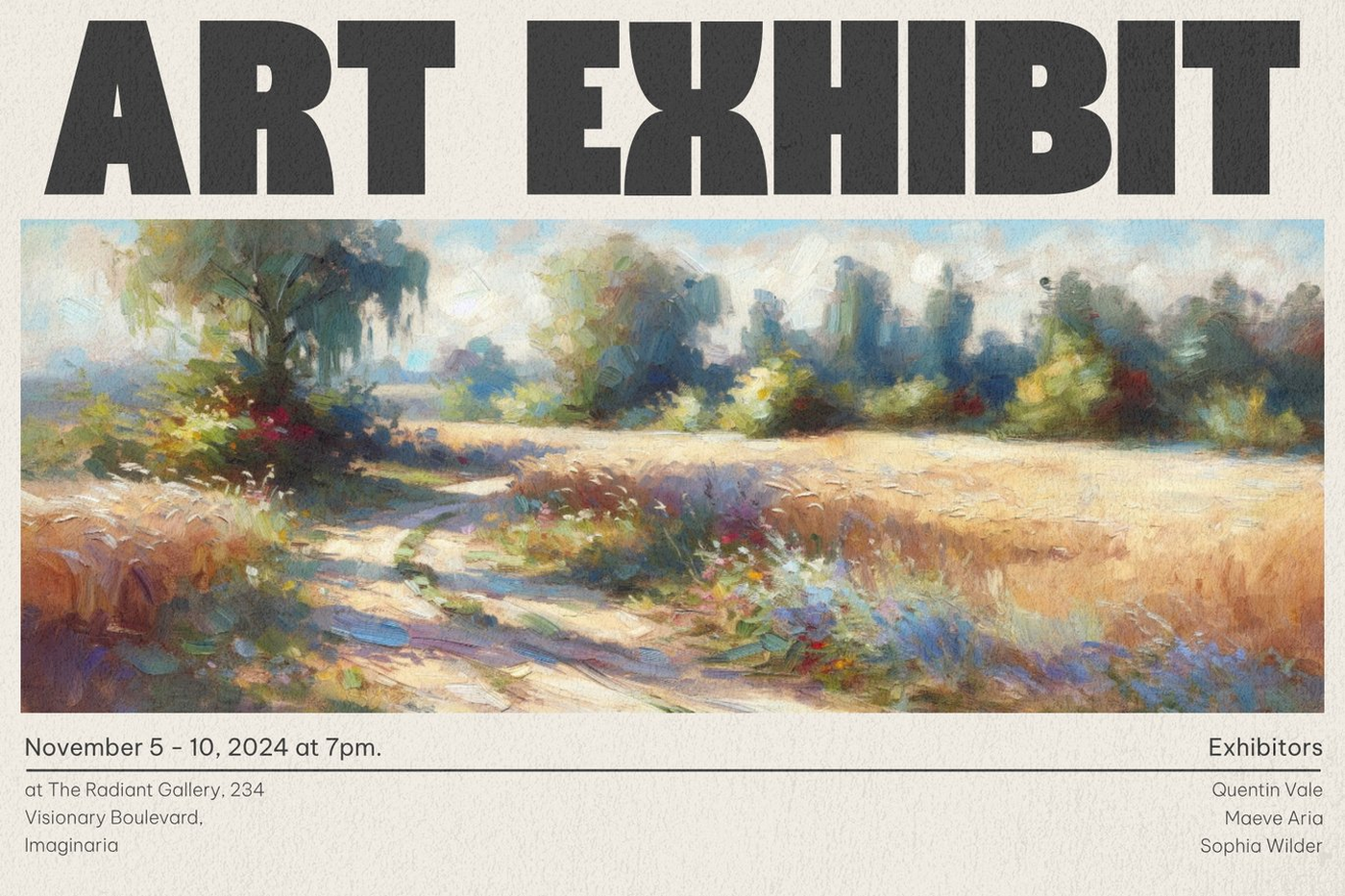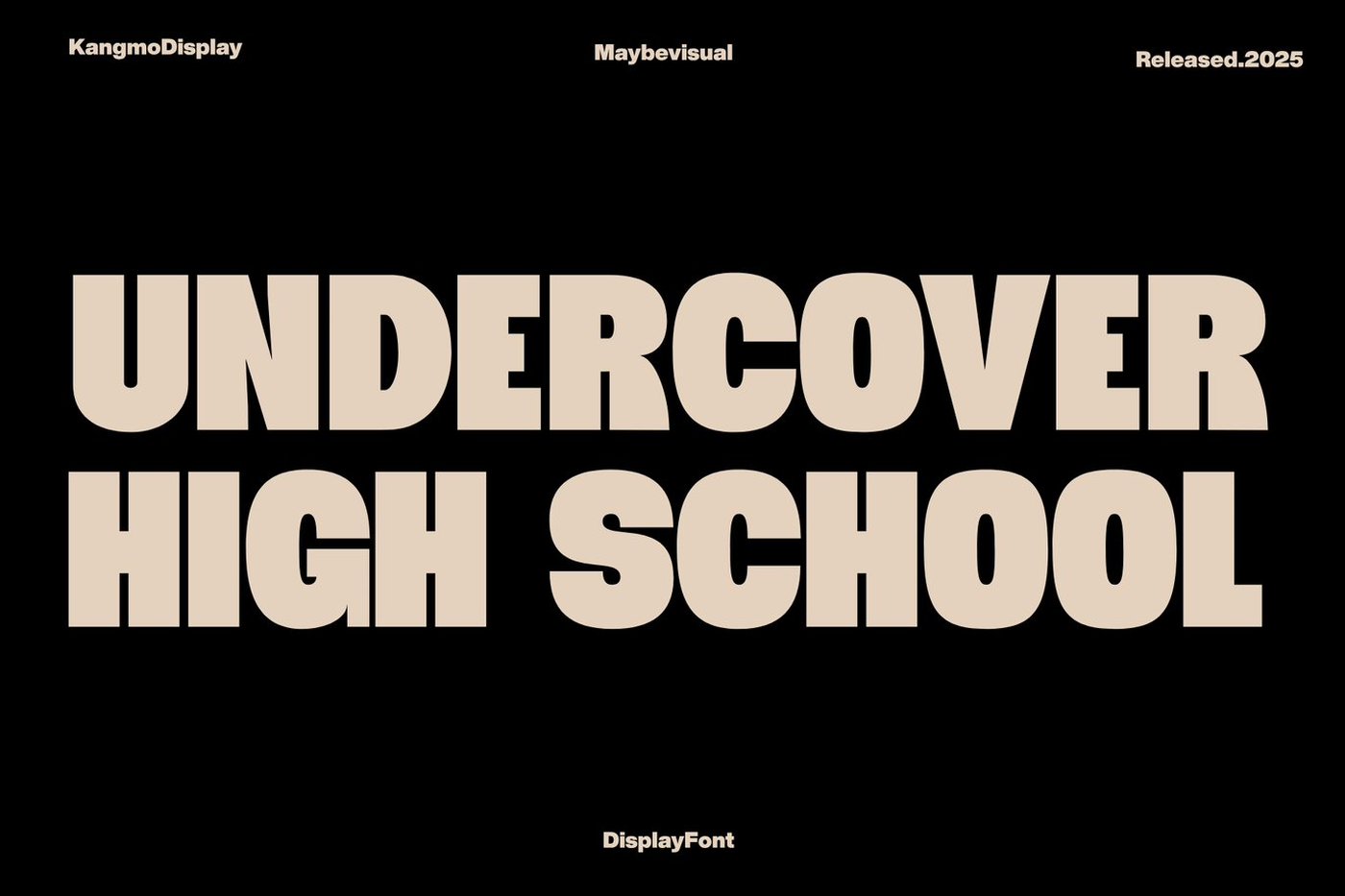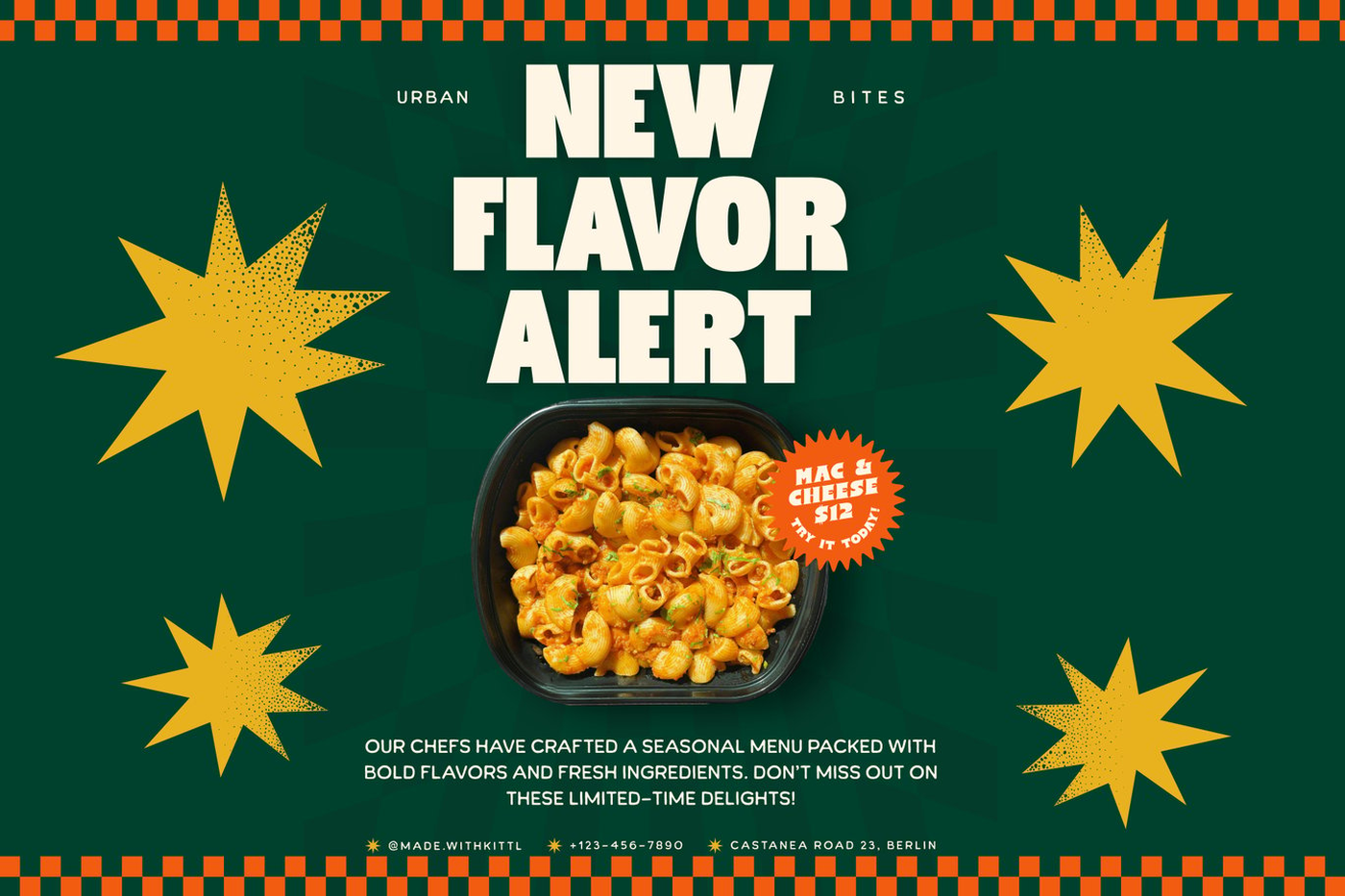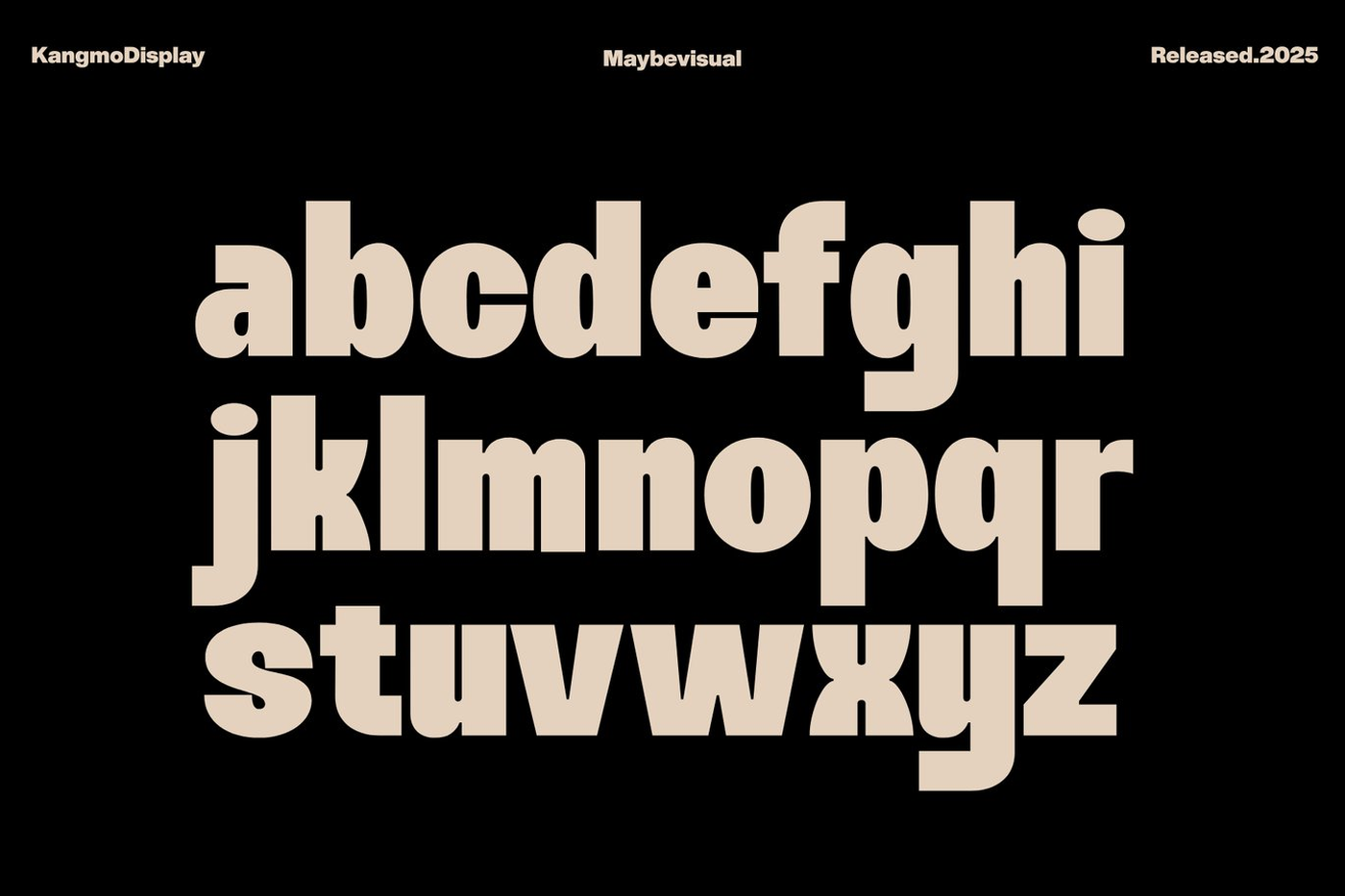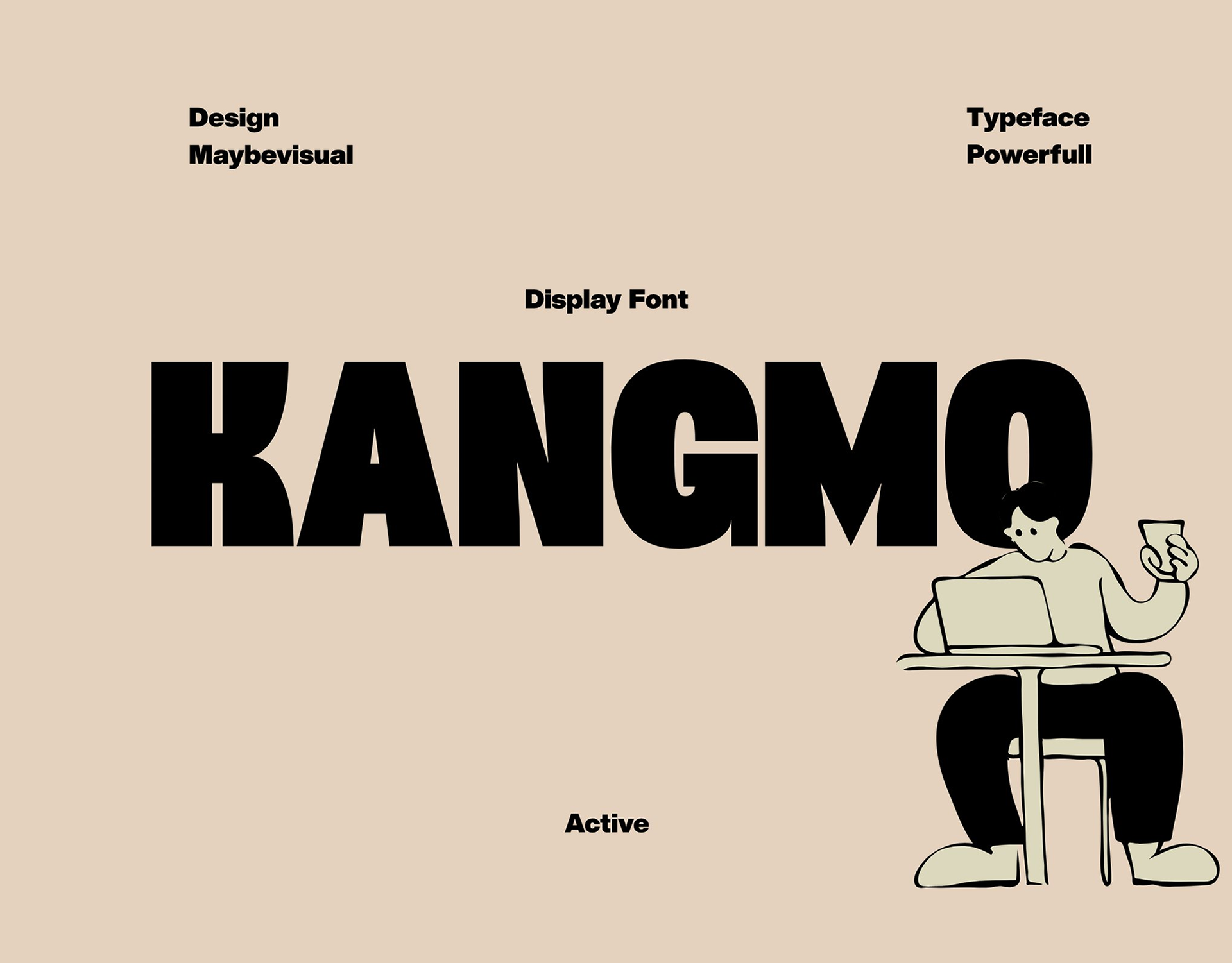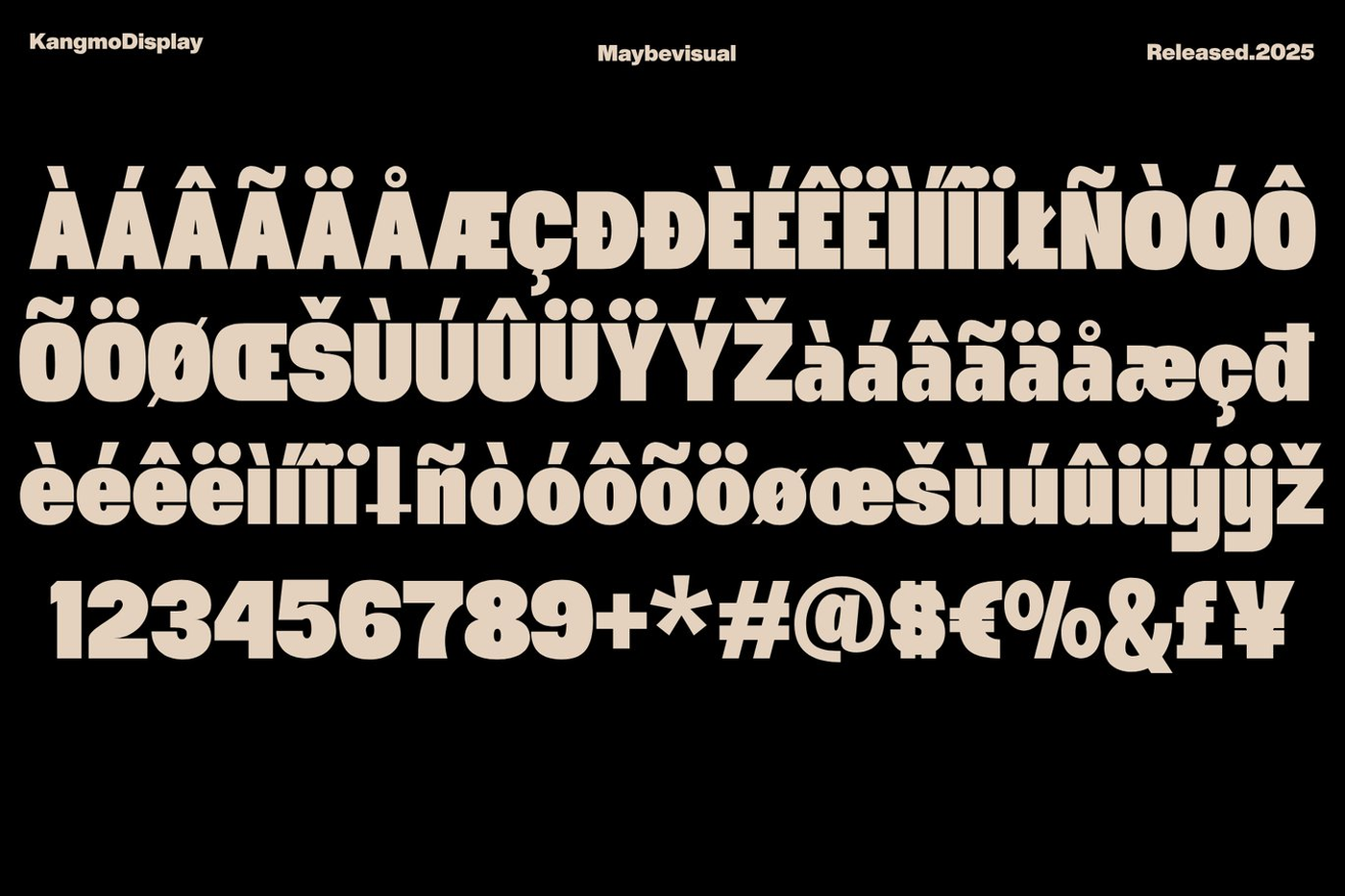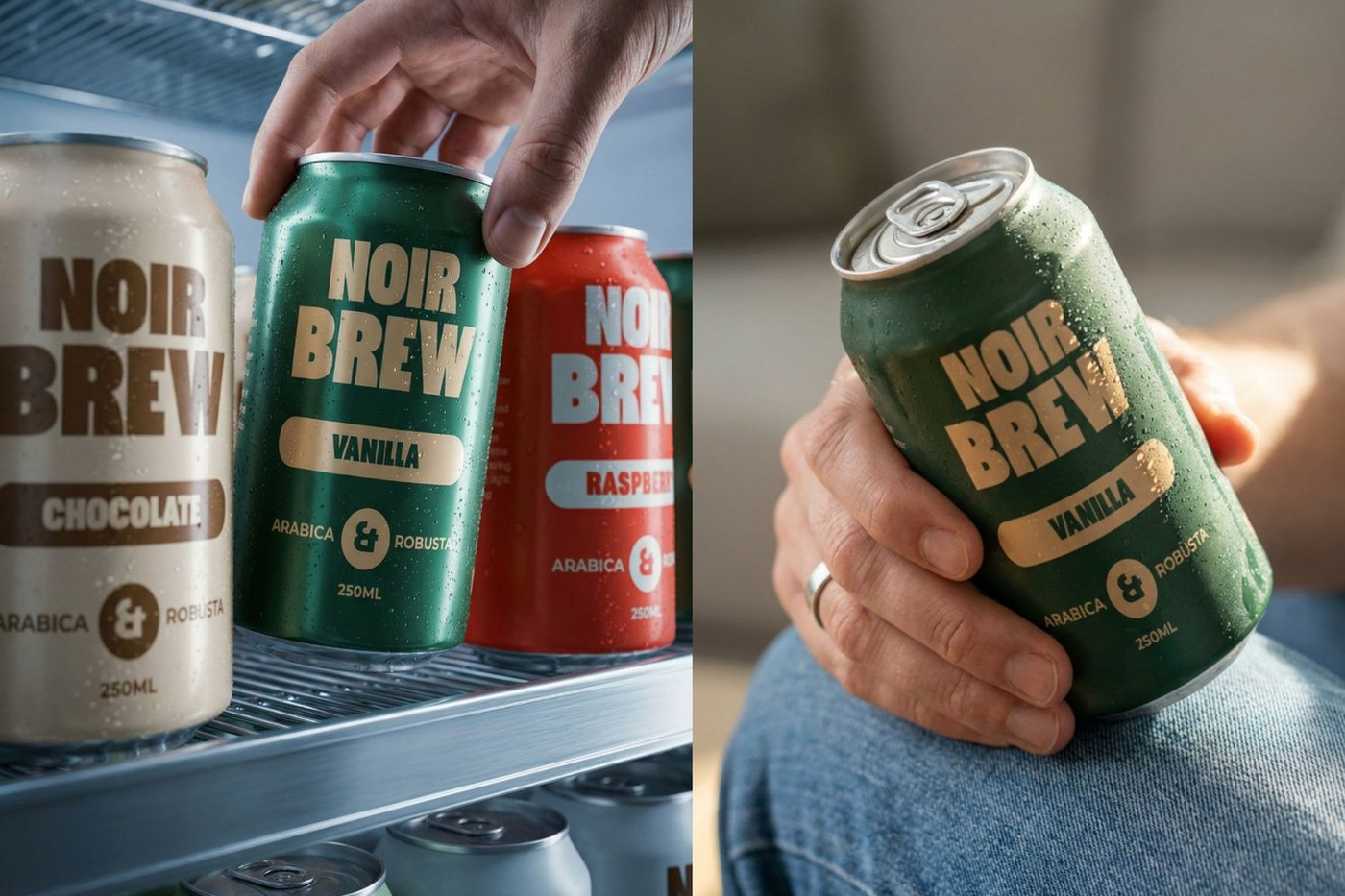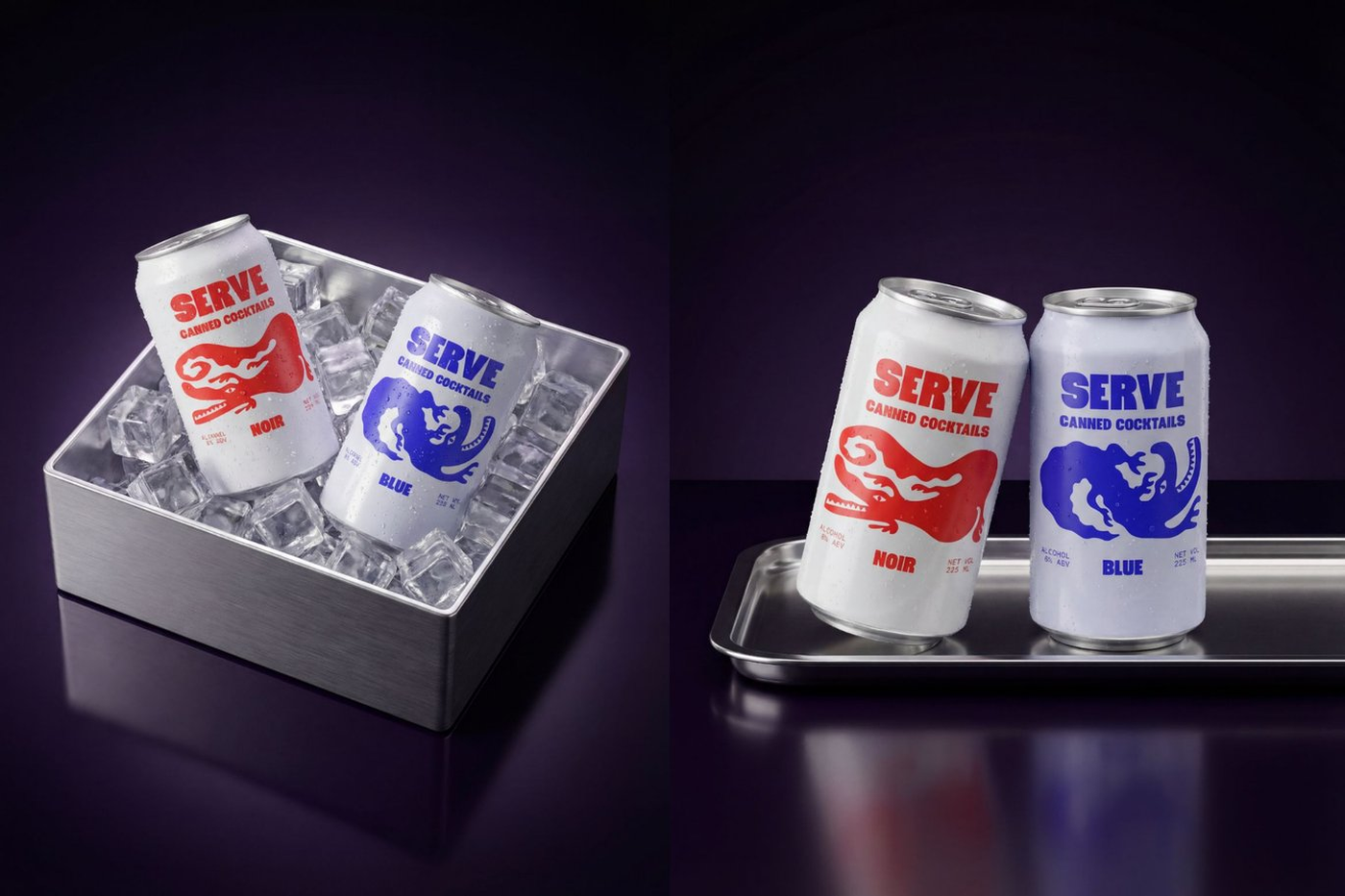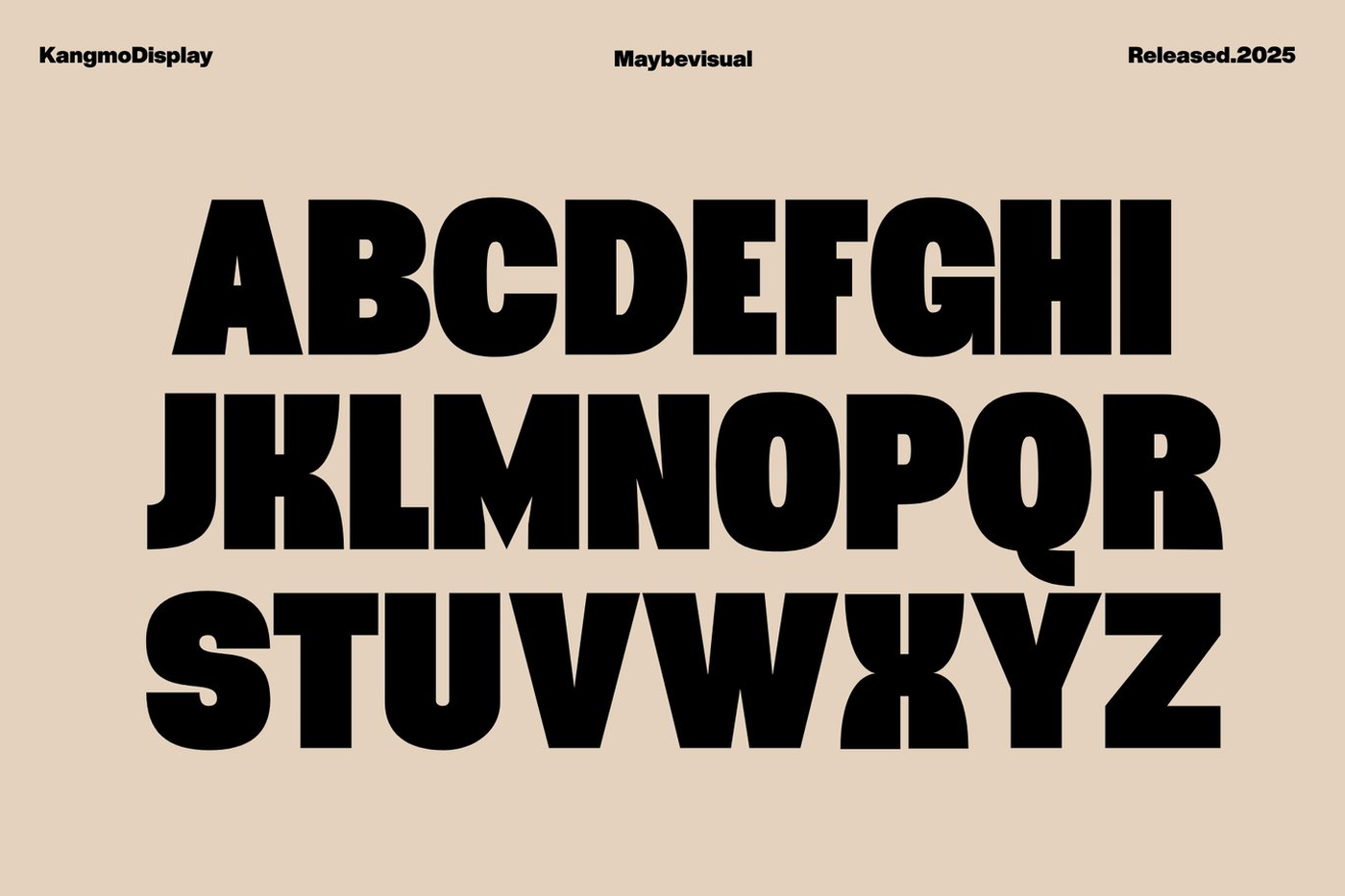
Kangmo - Bold Display Font
KANGMO is a bold and powerful display typeface designed to make a strong visual impact. With its thick, solid letterforms and confident structure, this font exudes strength, stability, and modern appeal. Perfect for headlines, posters, branding, and impactful designs, KANGMO captures attention instantly while maintaining a clean and professional look. Its minimalist yet assertive style makes it highly versatile for both contemporary and creative projects.
Designer: Maybevisual
Font: Kangmo